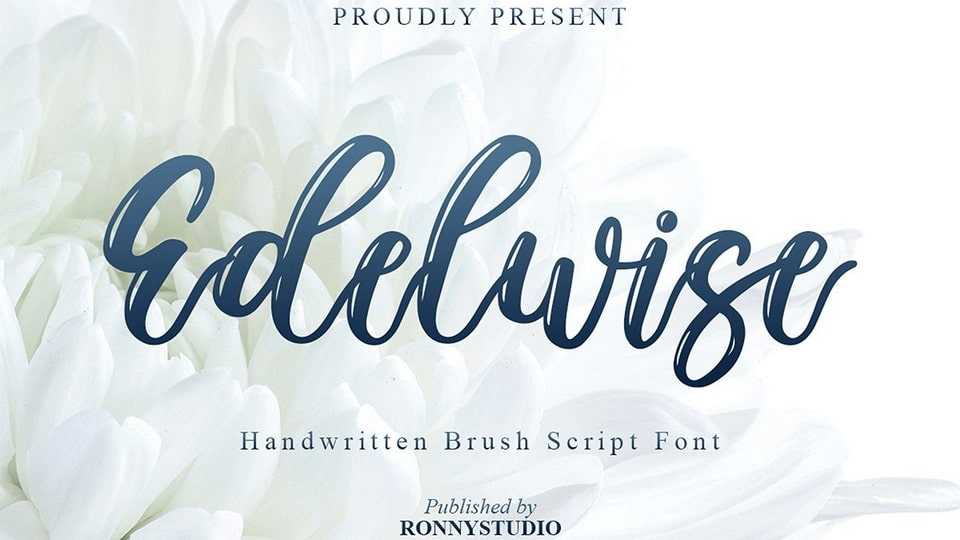
Download Edelwise Script font, a beautiful and timeless handwritten font. Edelwise Script is the best choice for creating attractive logos, branding, social media posts, weddings, decorations and quotes.